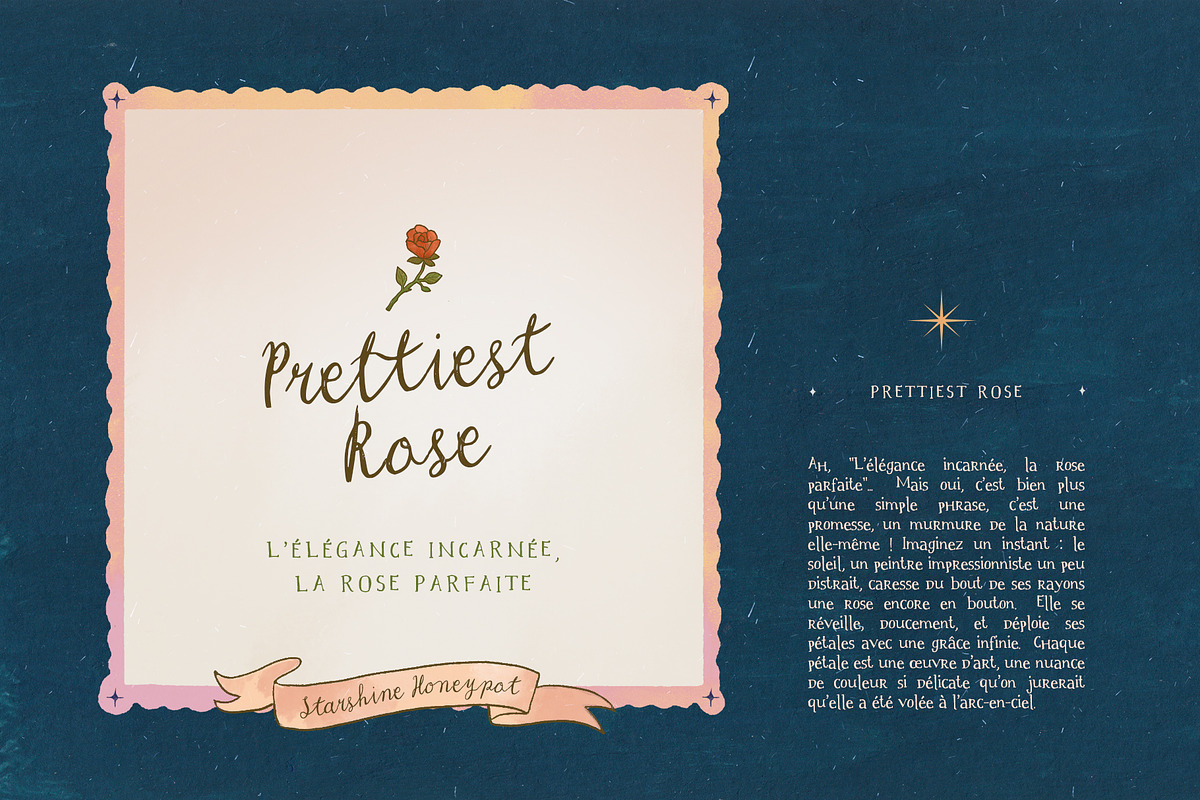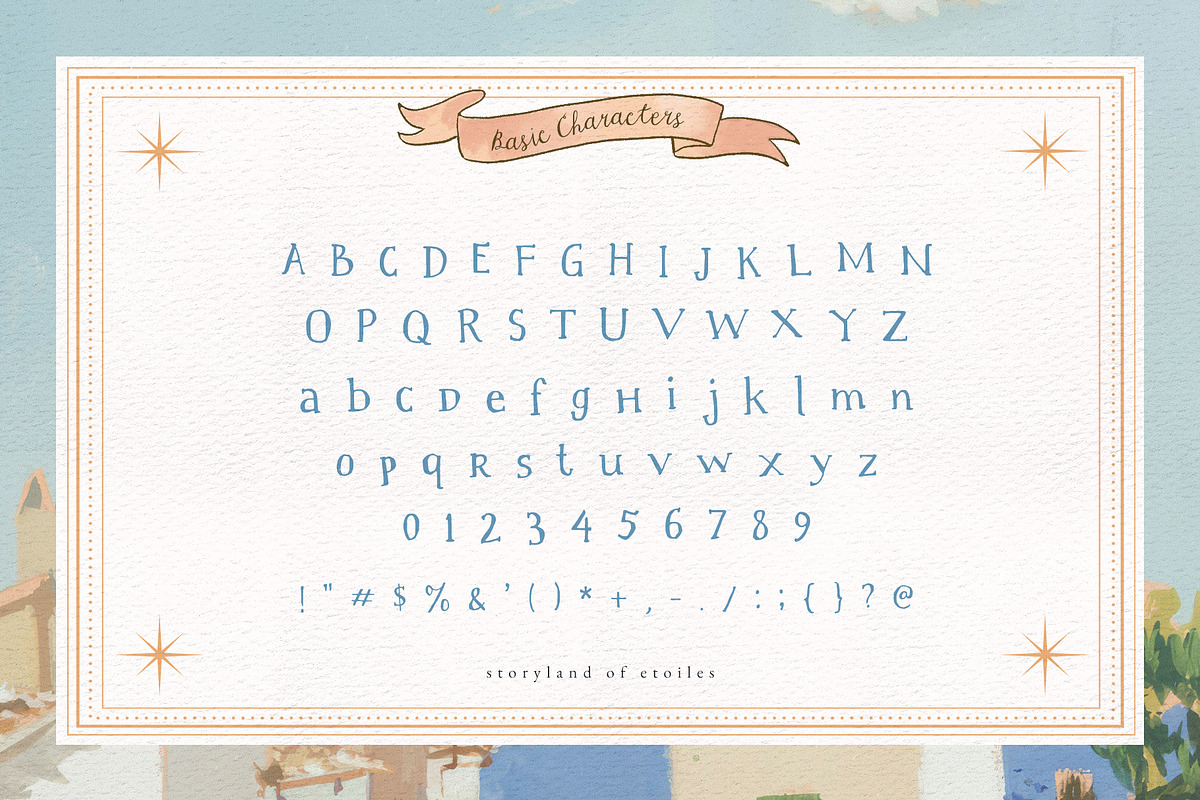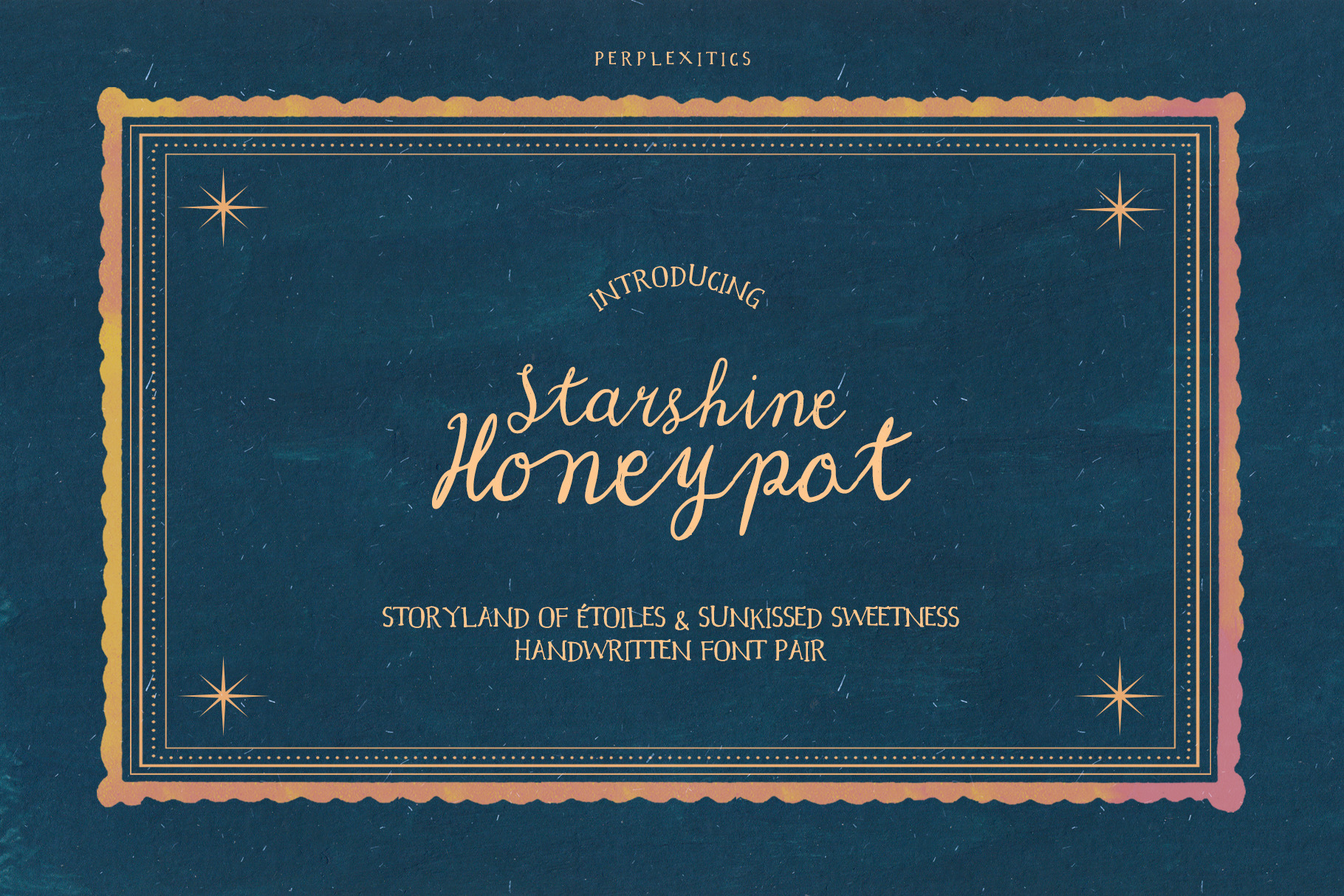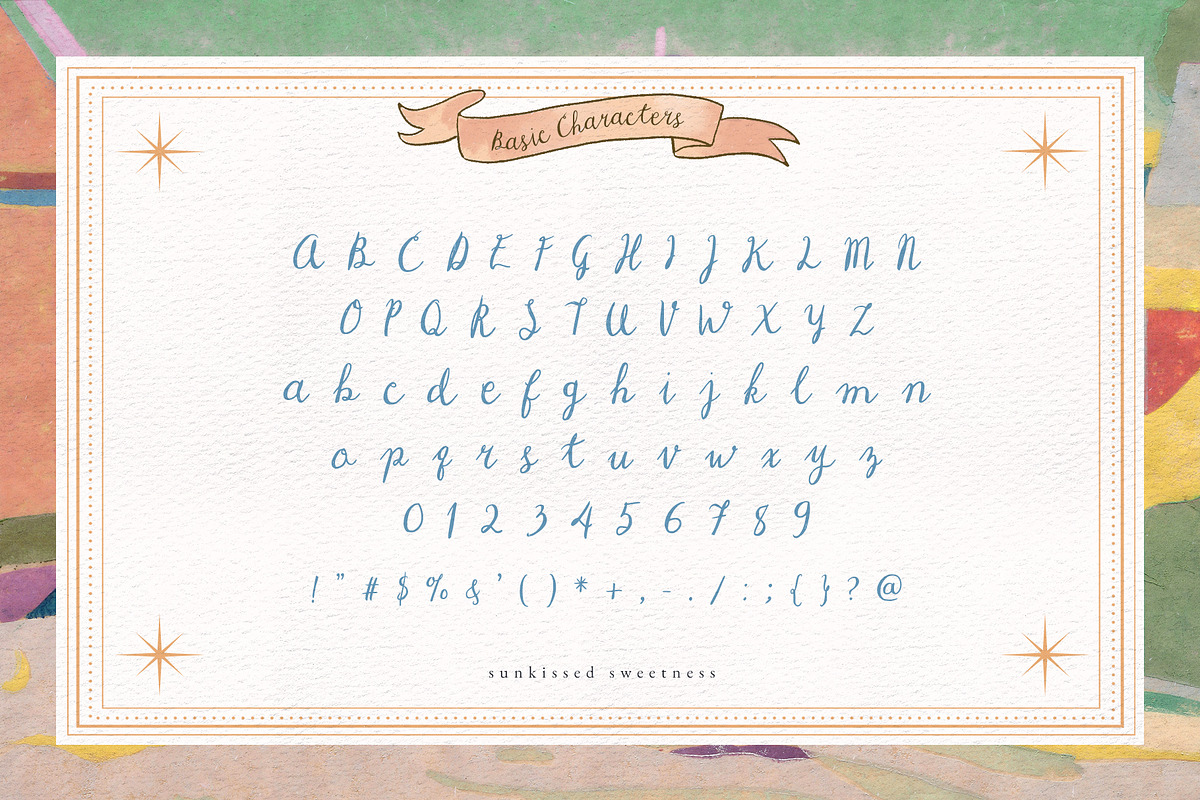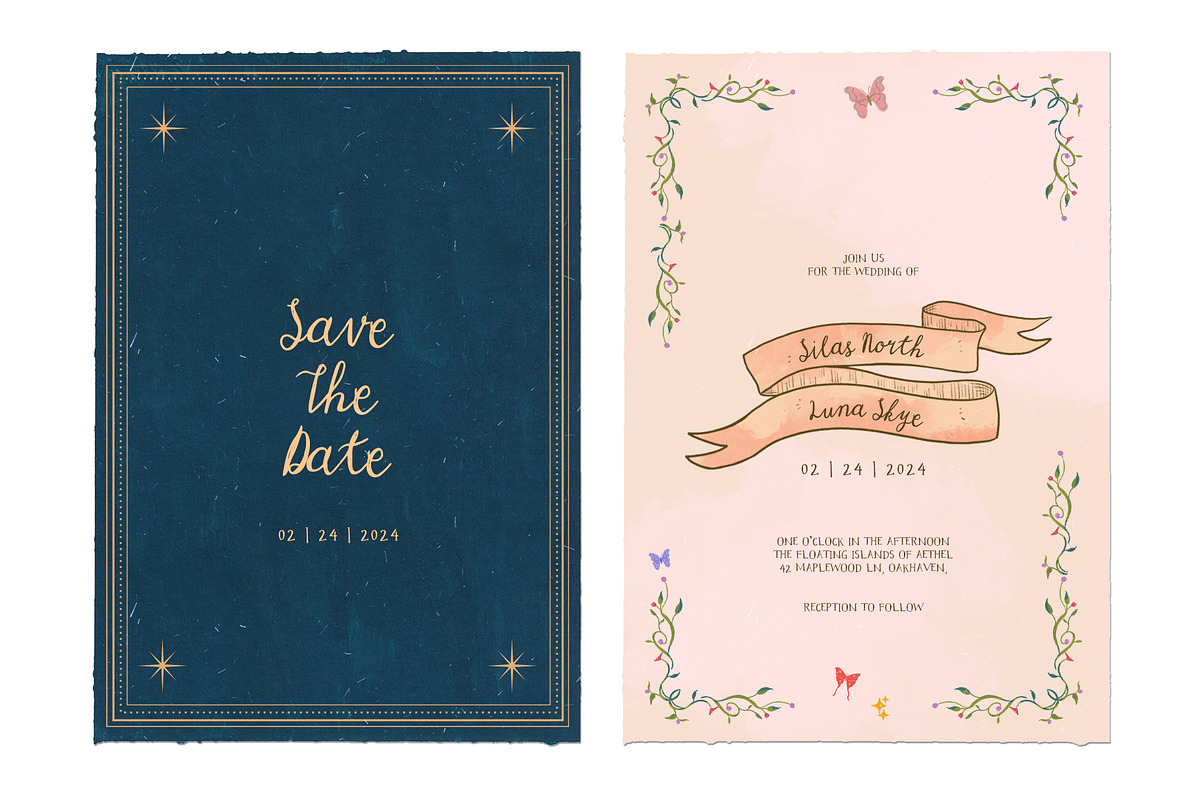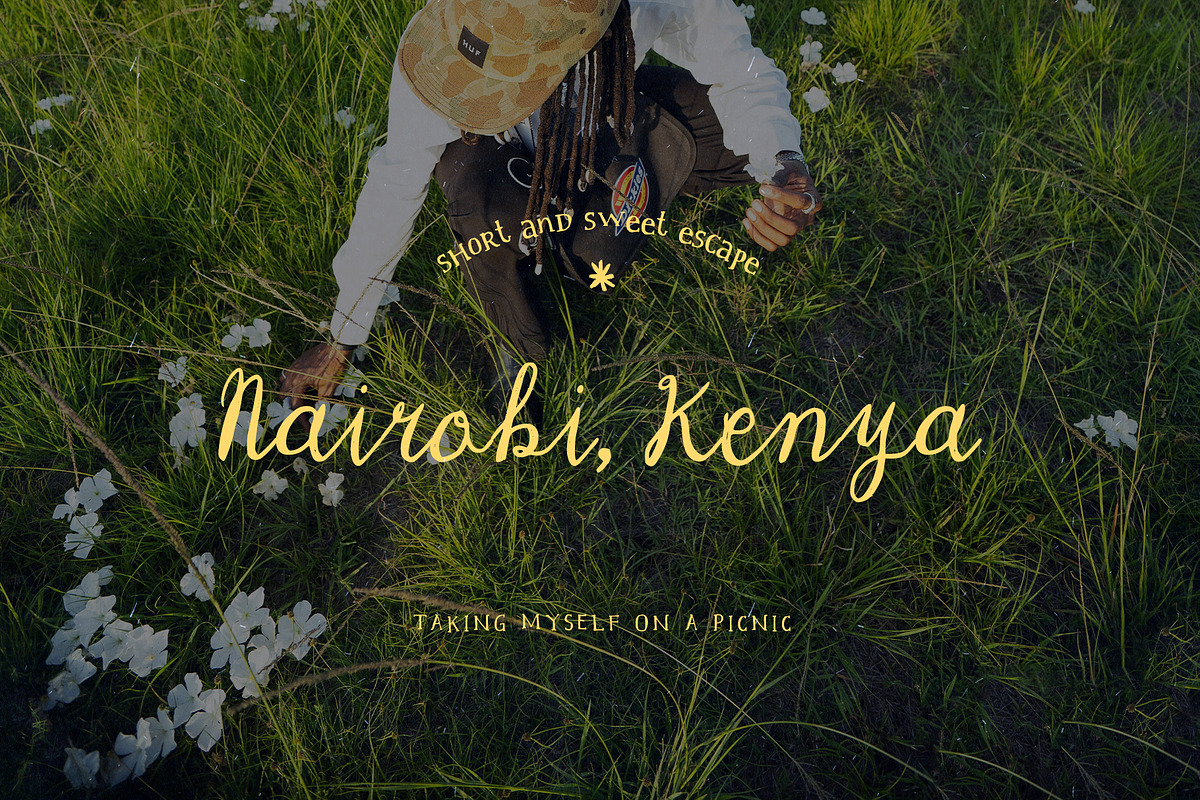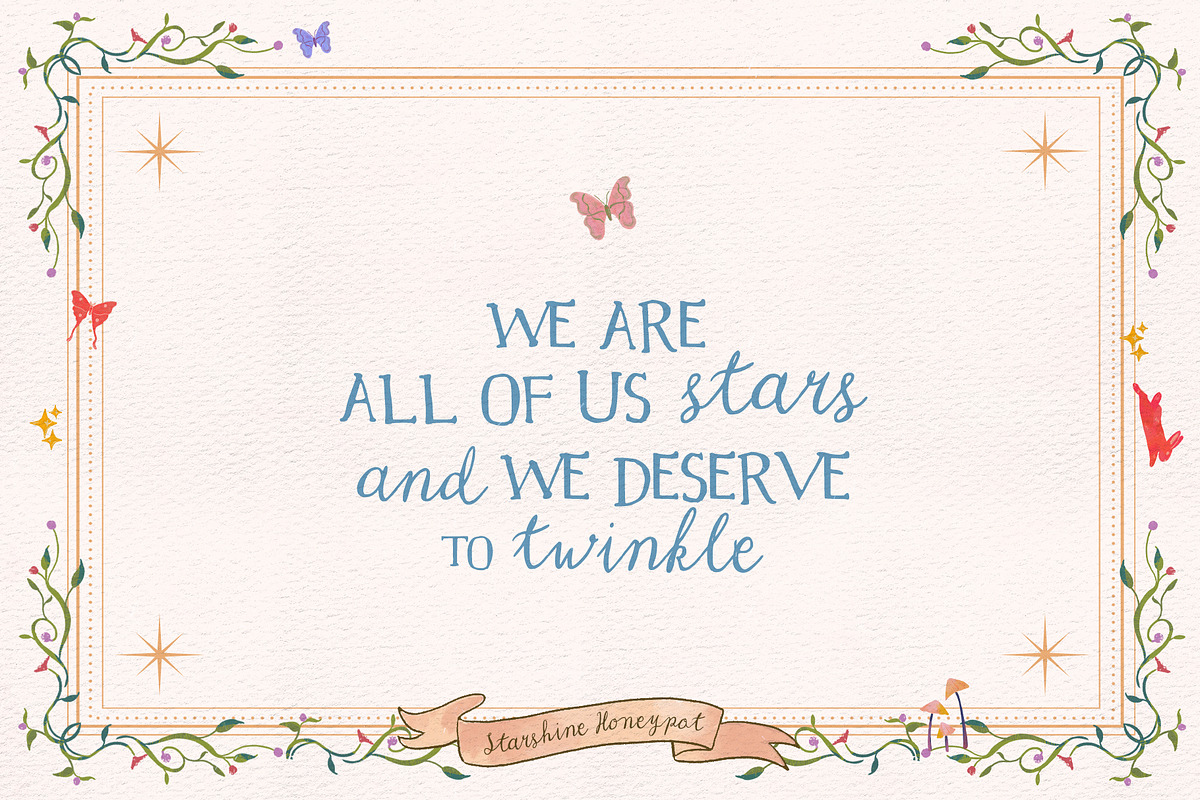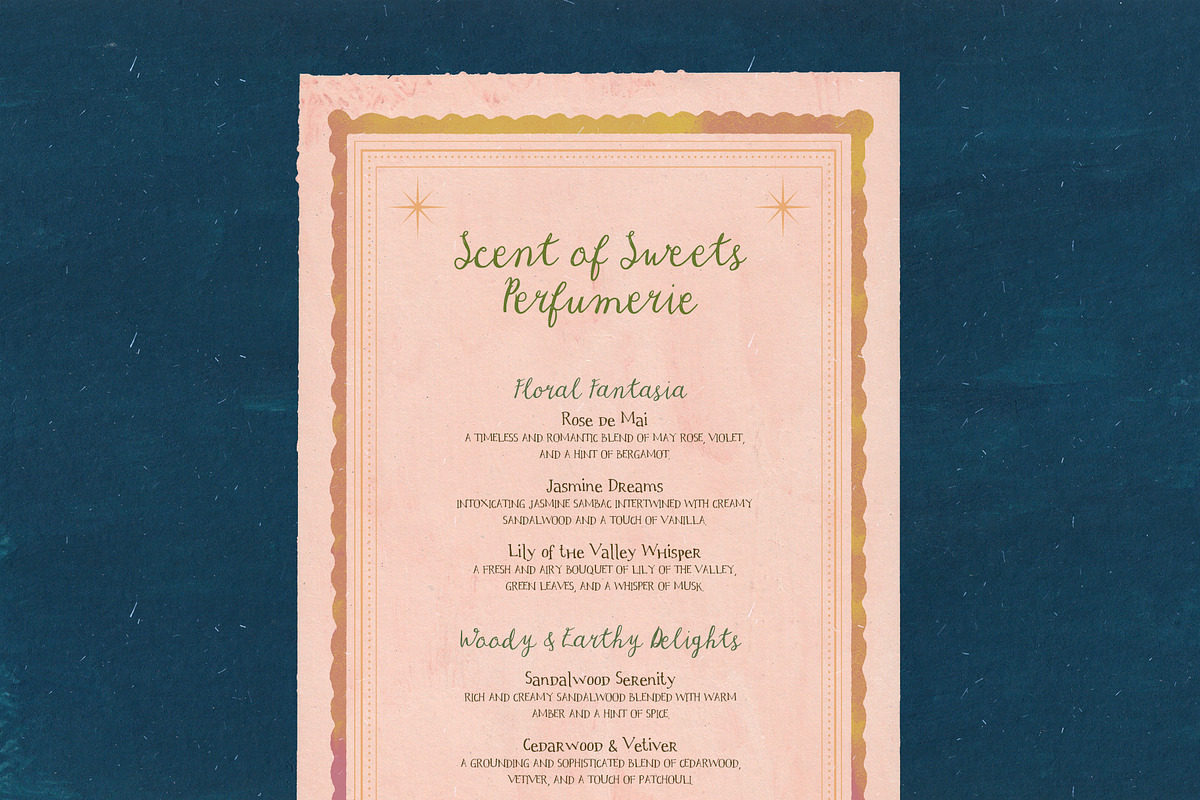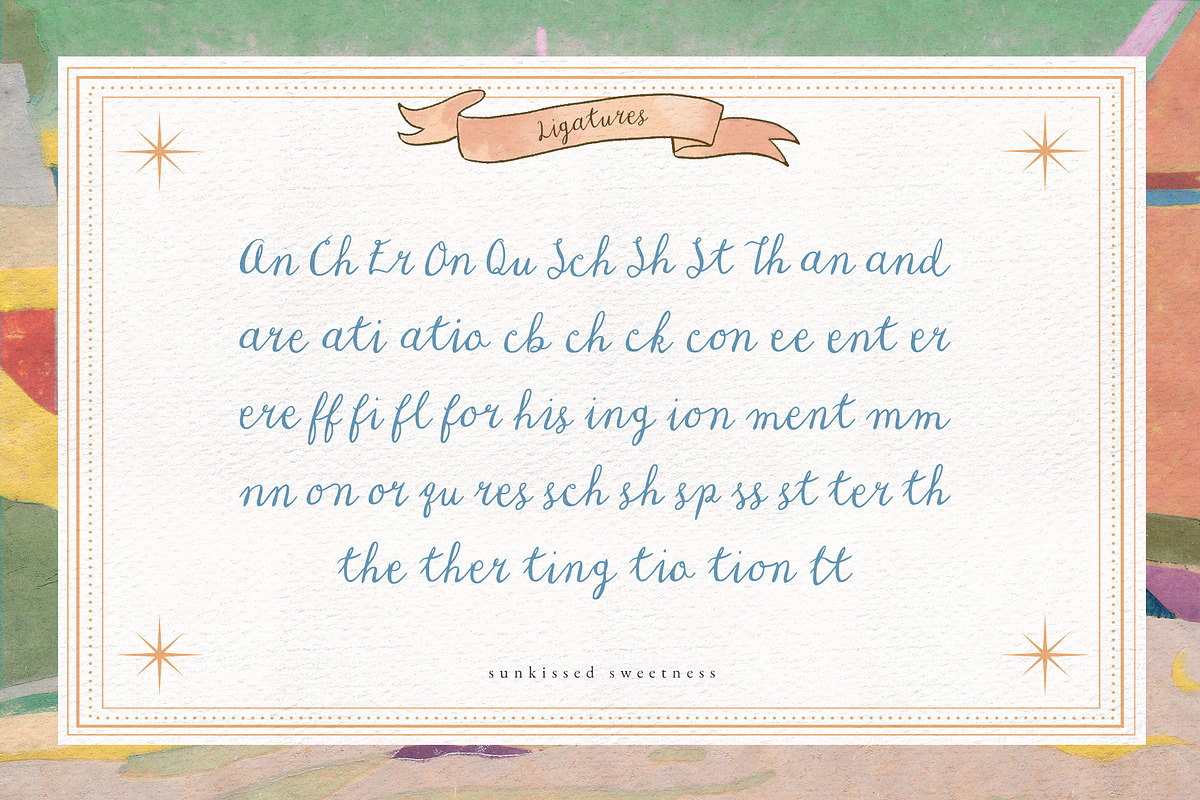
Starshine Honeypot Font Pair
Starshine Honeypot Font Pair: Storyland of Etoiles and Sunkissed Sweetness Fonts combines a whimsical handwritten serif font with a charming script, perfect for adding a touch of magic to your designs.
Starshine Honeypot Font Pair is packed with everything you need, including uppercase and lowercase letters, numbers, and punctuation. Multilingual support.